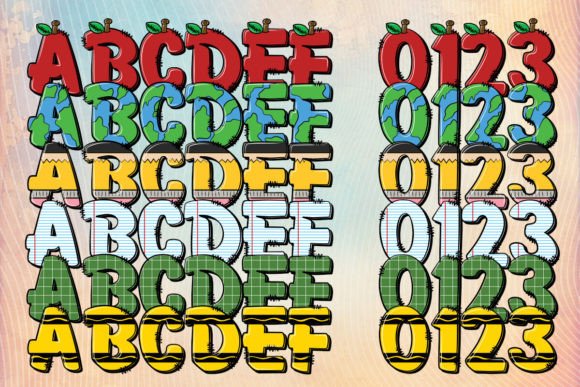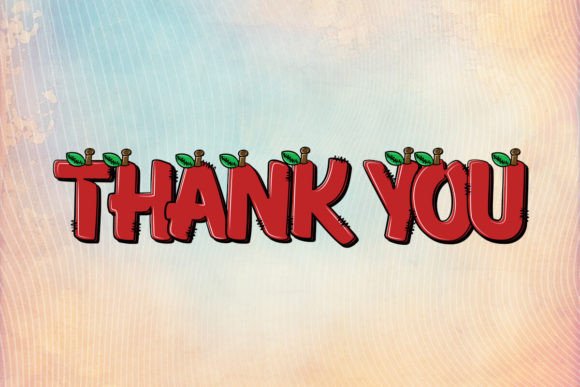
Get Ready for a Fresh Start with the Back to School Font
Remember the thrill of buying new school supplies and decorating your locker with colorful pens and stickers? That same excitement is what inspired the creation of the Back to School Font – a delightful blend of charm and creativity designed to bring a smile to the faces of educators, learners, and anyone who loves the magic of the first day of school.
This enchanting font comes in six distinct styles, each infused with the spirit of academia, from paper and pencils to Earth Day themes. As a designer, you’ll appreciate the attention to detail and skillful design that brings the essence of scholastic adventure to life. Whether you’re creating educational materials, marketing campaigns, or simply adding a playful touch to your designs, the Back to School Font is sure to captivate your audience and leave a lasting impression.
Key Features of “Back to School Font”
- Unique Characteristics: Custom-designed glyphs for back-to-school icons, symbols, and phrases
- Kerning and Ligatures: Advanced kerning and ligature system for improved readability and aesthetics
Back to School Font Review
I recently had the chance to work with the “Back to School Font”, and I wanted to share my honest thoughts with you. Overall, I was a bit skeptical about this font, but I was pleasantly surprised by some of its features.
- ✨ Friendly and approachable feel: The font is designed to evoke a sense of nostalgia and warmth, which makes it perfect for school-related projects or materials.
- ✨ Readability: The font is clear and easy to read, even at smaller sizes, which is a must for any font used in educational settings.
- ✨ Customization options: The font comes with a range of customization options, including color schemes and text styles, which makes it easy to tailor the font to your specific needs.
However, there are also some limitations:
- ⚠️ Limited versatility: The font is primarily designed for school-related projects, which means it may not be the best choice for more general use cases.
- ⚠️ Limited character set: The font has a relatively small character set, which may not be suitable for more complex texts or languages.
Overall, I think the “Back to School Font” is a solid choice for school-related projects or materials. While it may not be the most versatile font, it has a friendly and approachable feel that makes it perfect for its intended use cases.
The Back to School font is ideal for creating invitations, flyers, and other promotional materials for back to school events. It’s also great for creating educational materials, such as worksheets and handouts, and for personalizing school supplies, such as water bottles and notebooks.
To get the most out of the Back to School font, try pairing it with bold and colorful graphics, and use it in creative ways, such as in speech bubbles or as a title font. Experiment with different font sizes and colors to create a unique look that captures the spirit of the back to school season.